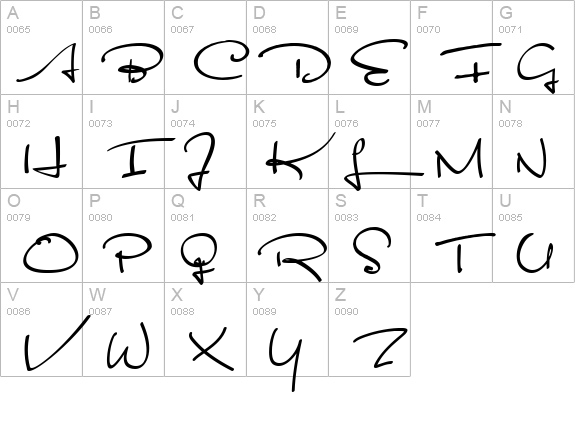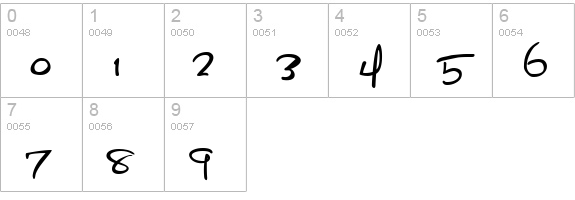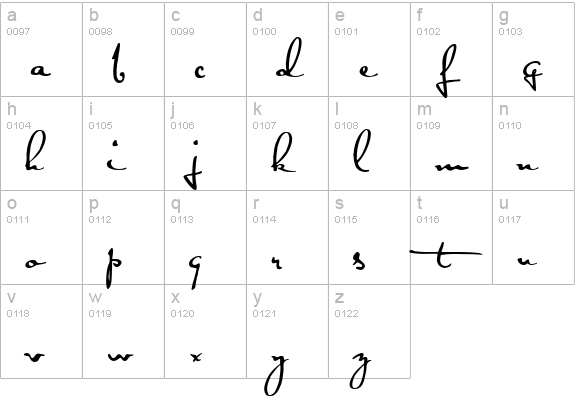
Satisfaction Font Details
Introducing Satisfaction font, a sleek and modern typeface designed to bring a touch of elegance to your projects. This versatile font features clean lines and a contemporary aesthetic that is sure to make a statement. With its stylish letterforms and subtle curves, Satisfaction font exudes a sense of sophistication and charm. What sets Satisfaction font apart is not only its striking design but also its accessibility. This font is available for free download at FontsMarket.com, making it the perfect choice for designers looking to add a touch of class to their creations without breaking the bank. Whether you're working on a logo, website, or print design, Satisfaction font is sure to elevate your work and leave a lasting impression. Download Satisfaction font today and unleash your creativity with this elegant and stylish typeface that is sure to satisfy all your design needs.